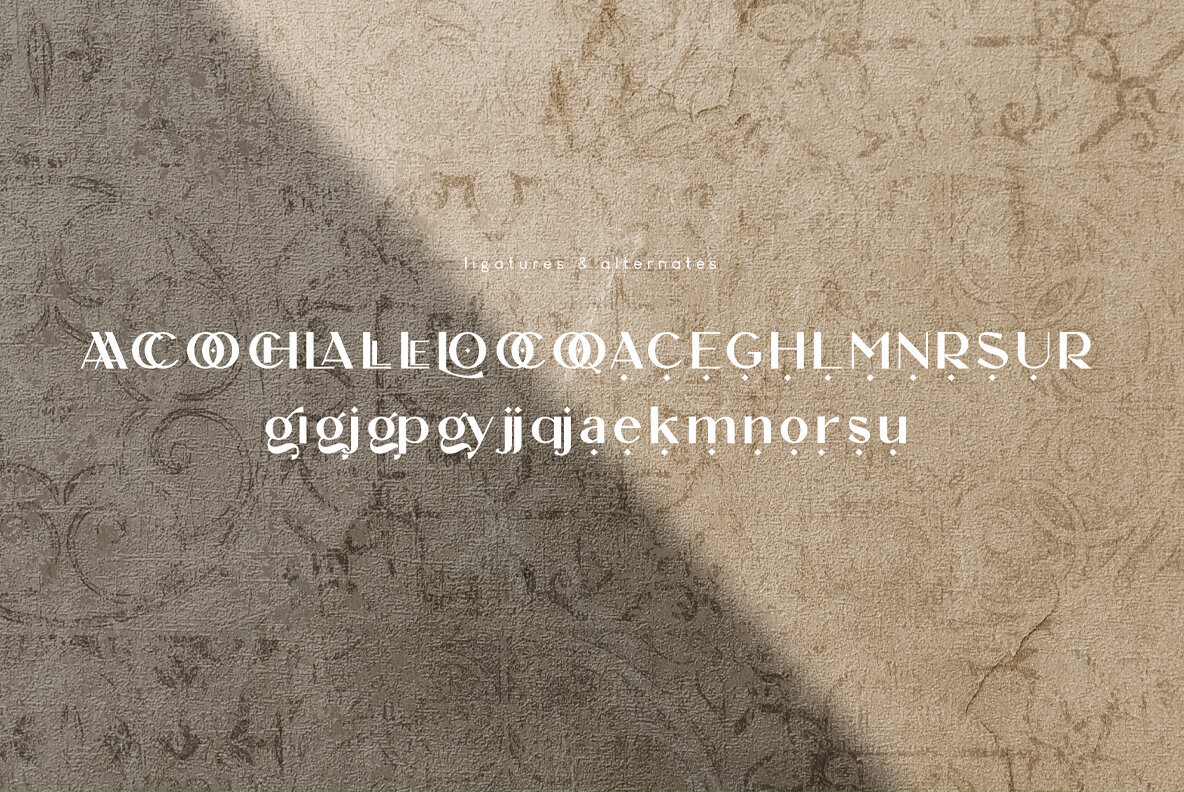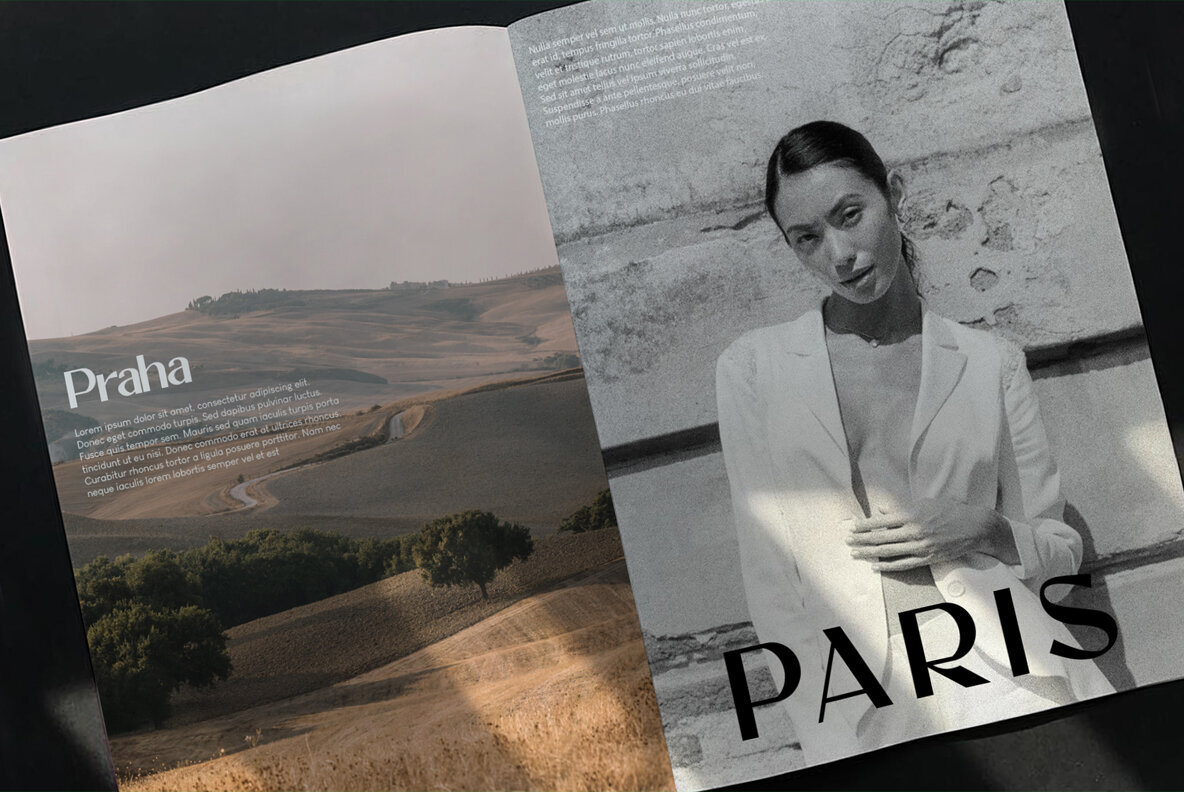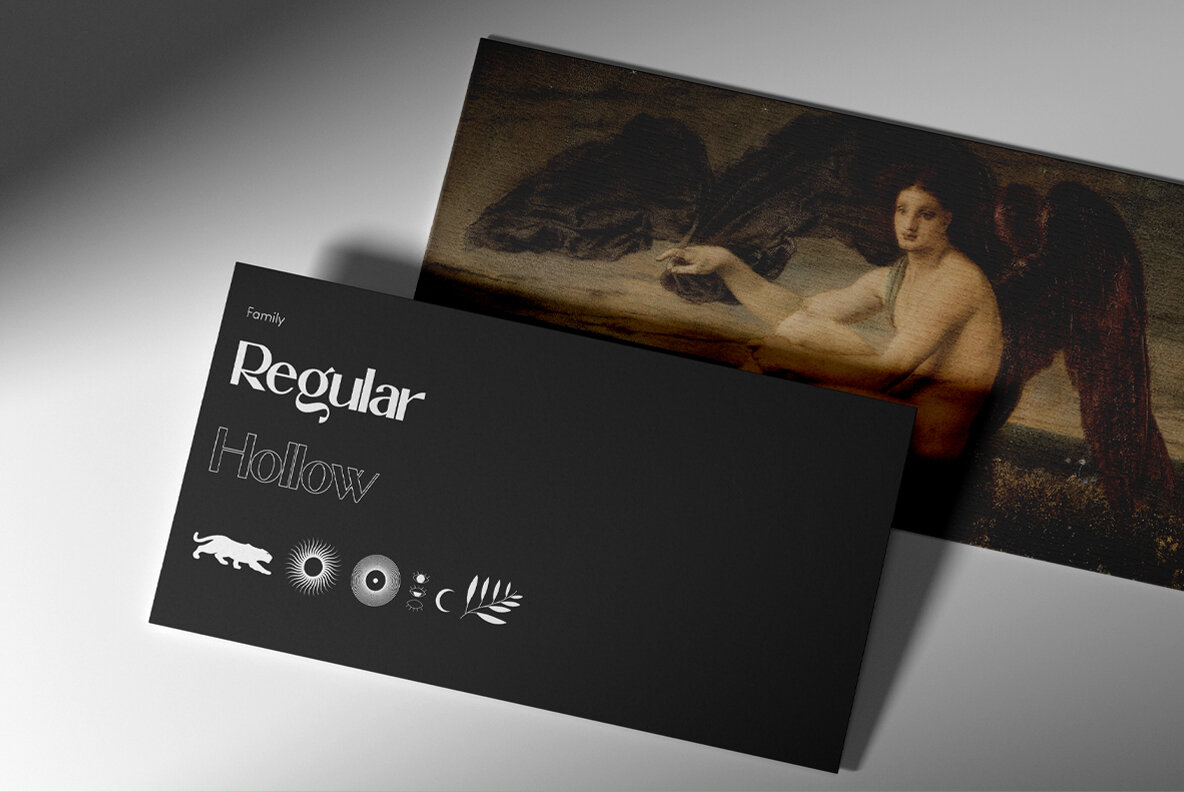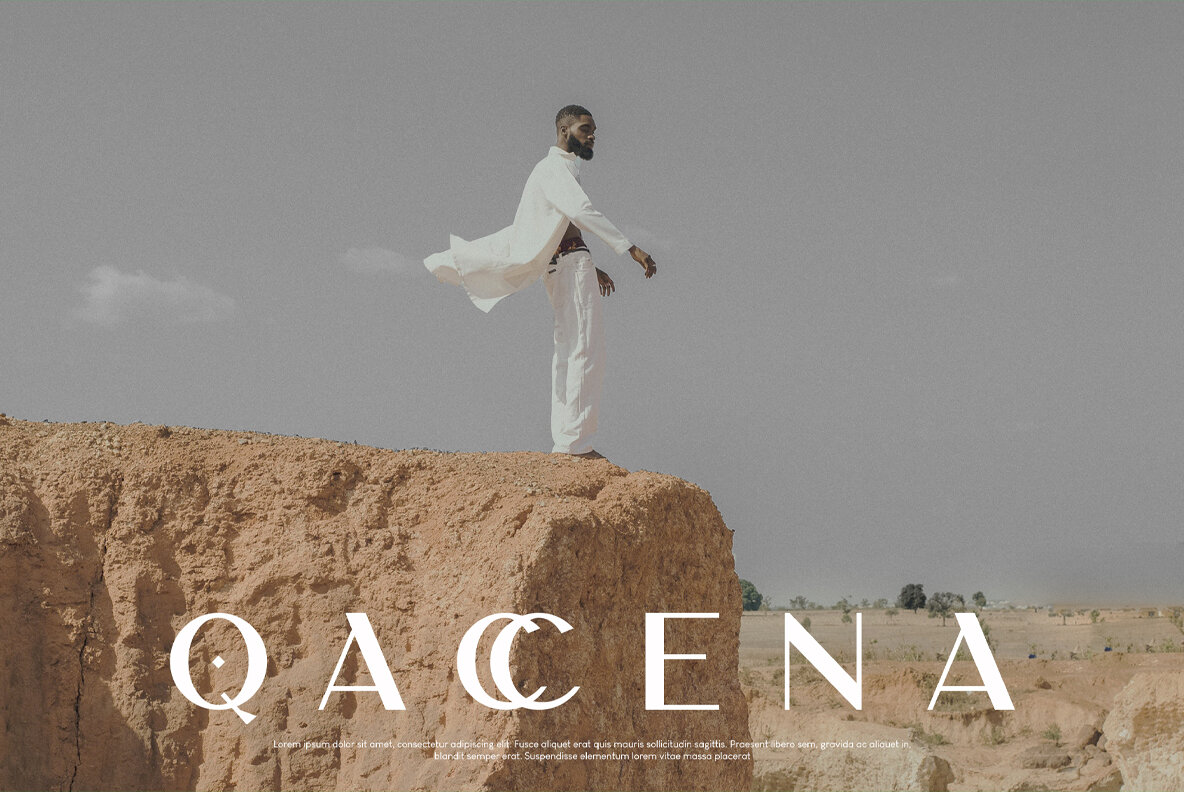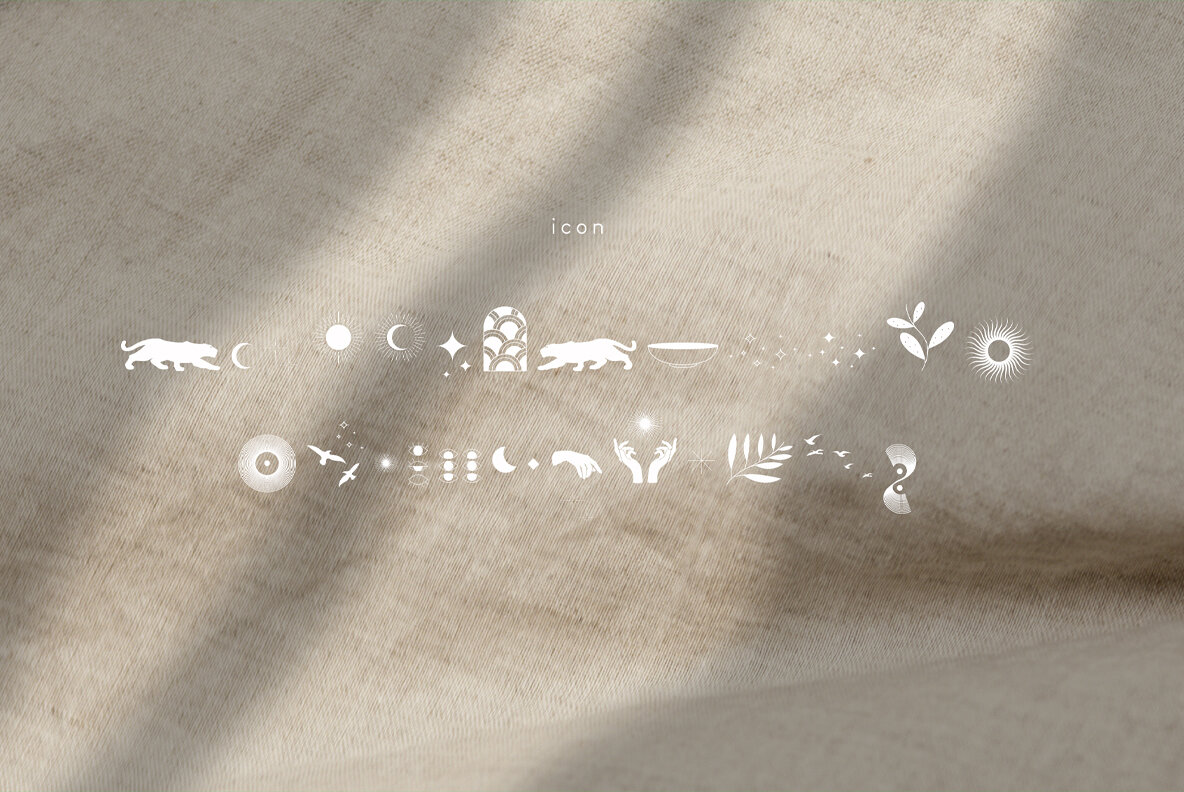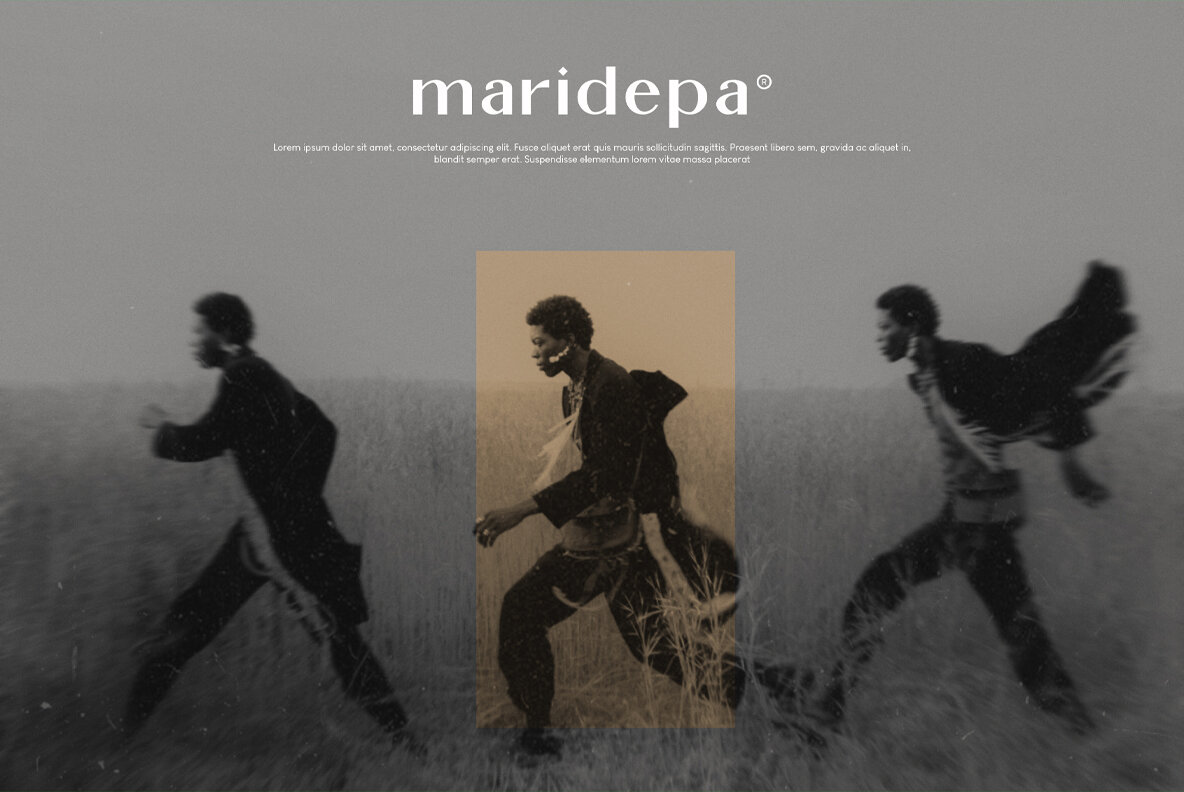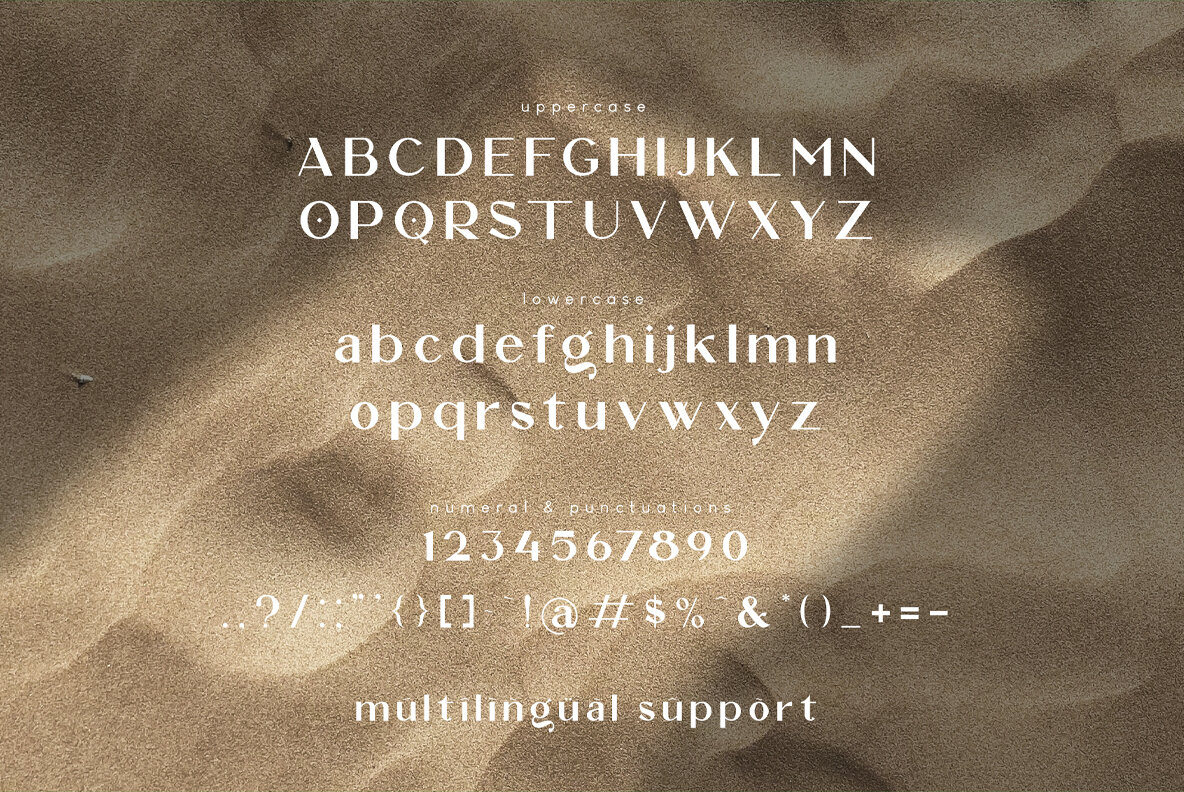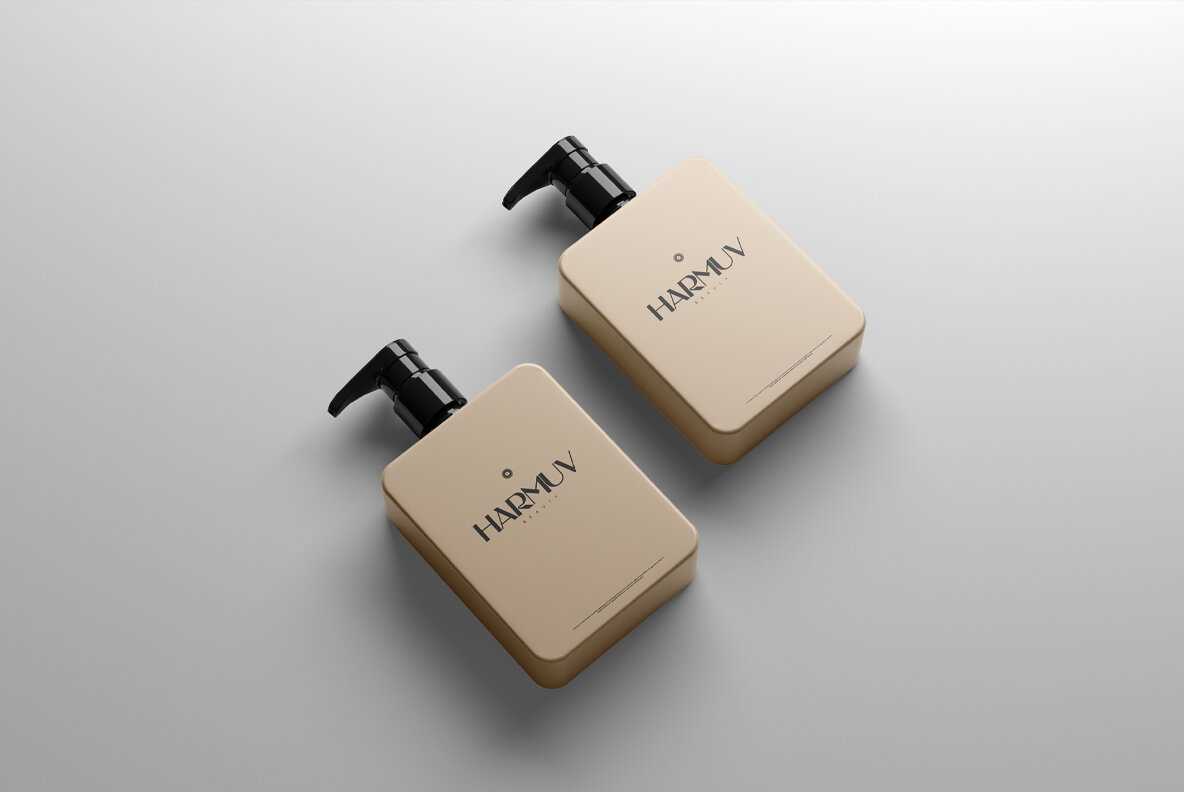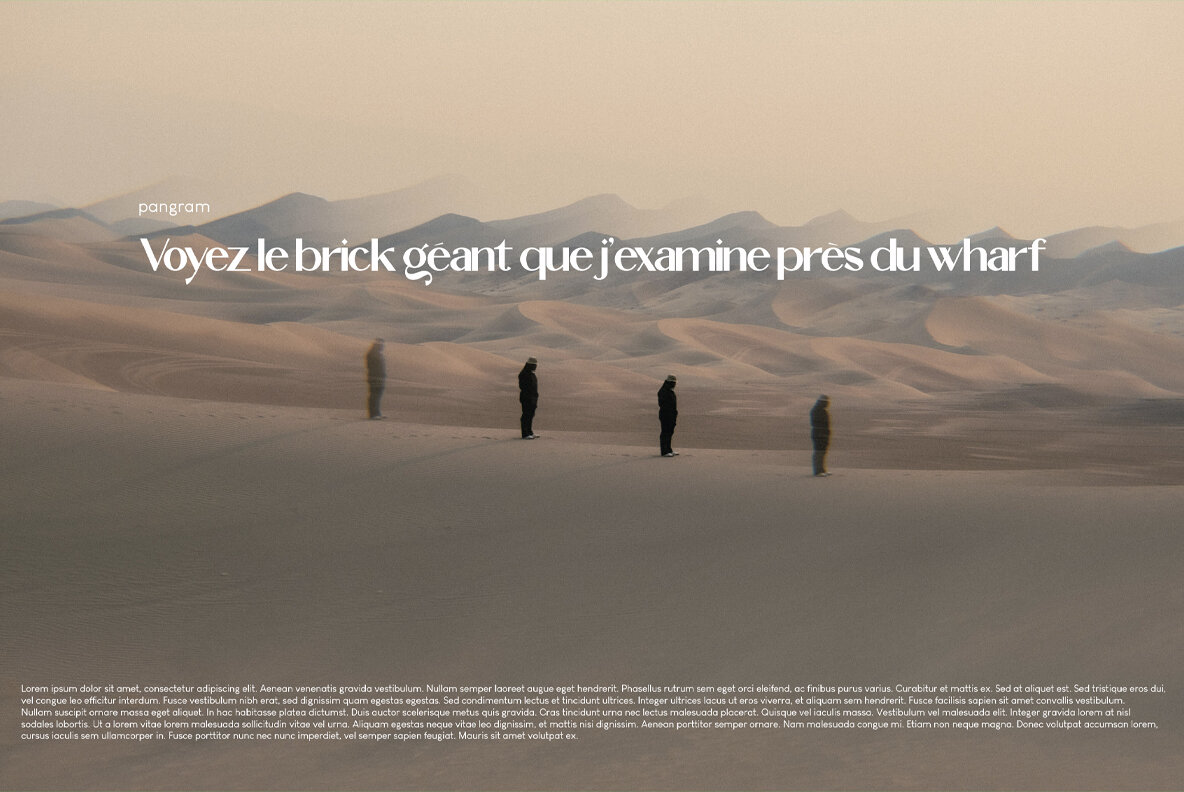
MARDE SAUVE Font
MARDE SAUVE
MARDE SAUVE Hollow
MARDE SAUVE Icon
Introducing MARDE SAUVE, an elegant display with aesthetic look. Perfect for who needs touch of elegancy, stylish, classy beautiful bold type, and modernity for their design. Complete with: - Ligatures - Alternates - Regular - Hollow - Icon - Kerning - Multilingual support